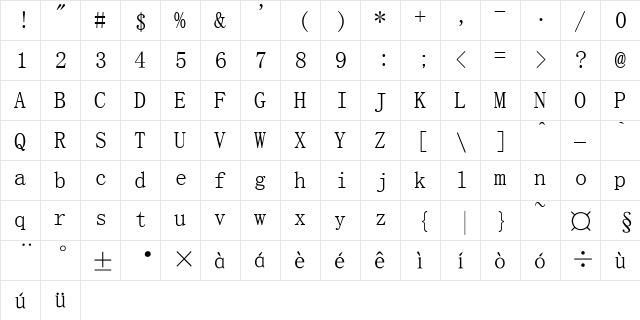
MS Song Regular Font Preview
MS Song Regular
MS Song Regular Font Details
Design Context for MS Song Typeface
MS Song offers clean, dependable letterforms without strong stylistic allegiance, making it a practical choice for designers who need flexibility.